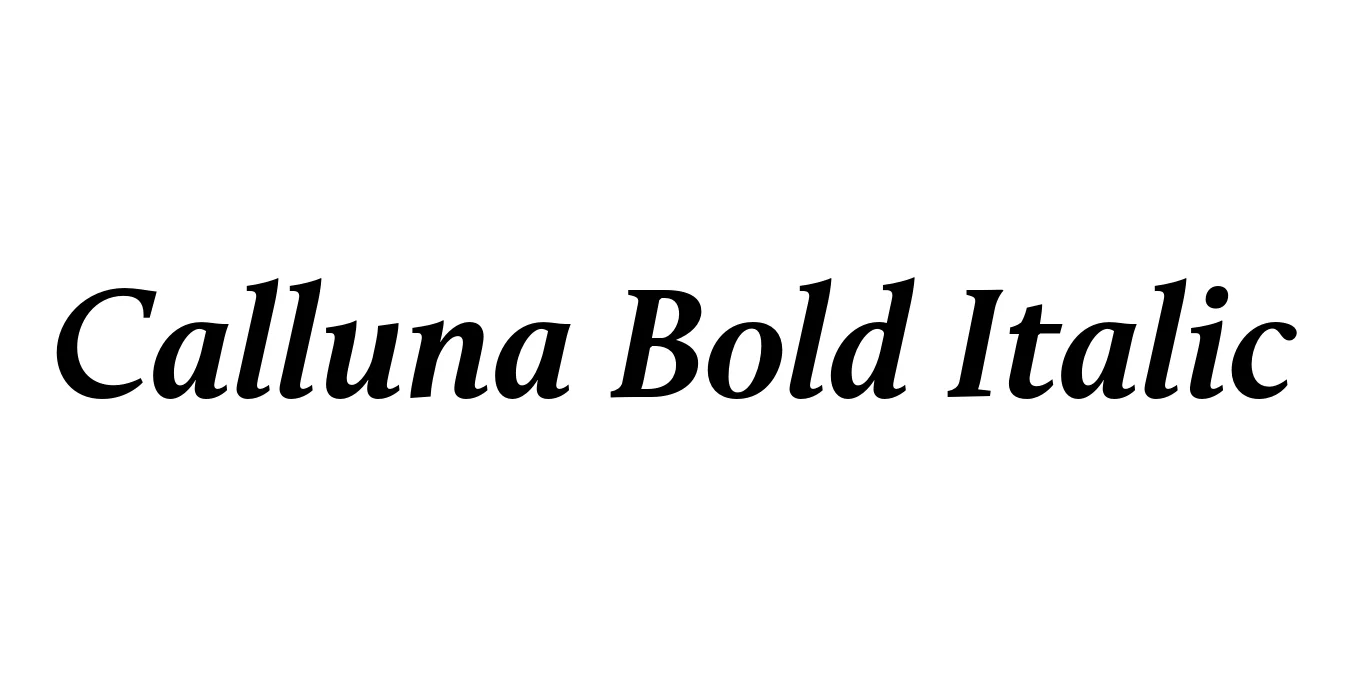
Calluna Bold Italic
Designed by Jos Buivenga
Calluna is a highly versatile serif typeface designed by Jos Buivenga and released through his exljbris font foundry in 2009. The design process began as an experiment in applying serifs to his popular Museo font, but it quickly evolved into a distinct, robust text face. It is celebrated for its unique calligraphic details, such as the flowing terminals and the sturdy serifs that provide excellent legibility across both print and digital platforms.
The Calluna Bold Italic weight is particularly notable for its dynamic and elegant flow, offering a sophisticated contrast to the regular weights. It is widely utilized in high-end editorial projects, book design, and corporate identities where a touch of classic refinement is required. Its balanced proportions and distinct personality make it a favorite among professional typographers seeking a contemporary take on traditional serif forms.
Calluna Bold Italic Best Uses
Excellent for magazine headers and emphasized body text.
Perfect for chapter titles and literary emphasis.
Sophisticated choice for logos, stationery, and professional identity.
Adds an elegant and authoritative tone to print and digital ads.